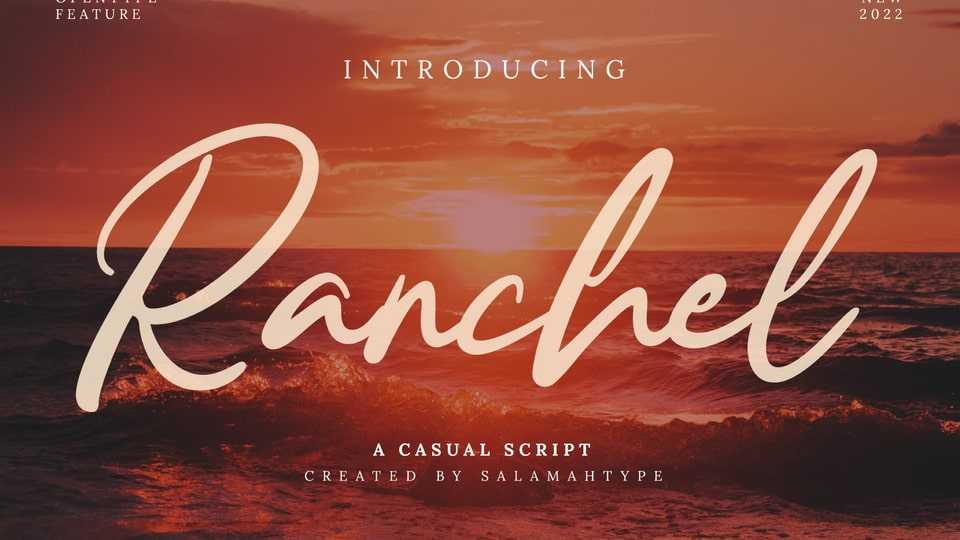
Download Ranchel font, an elegant and natural handwritten script. Ranchel is perfect for websites, branding projects, logo, wedding designs and so on.